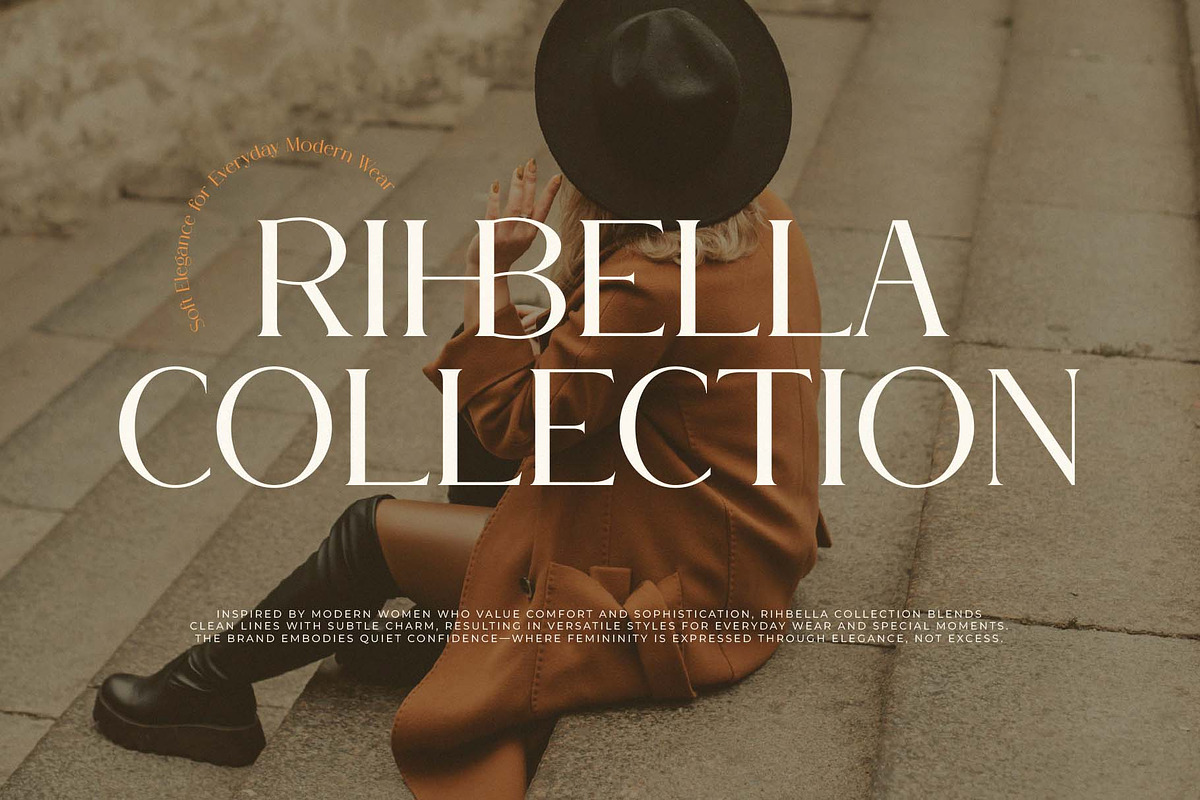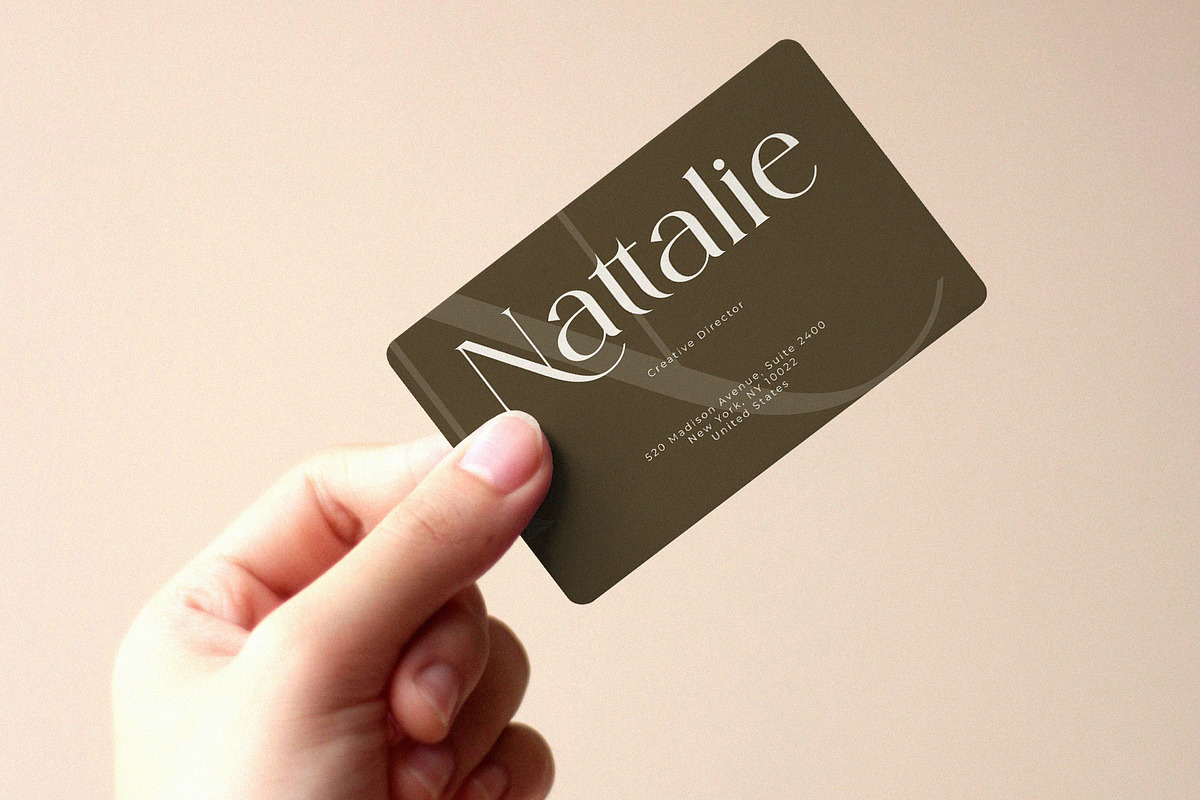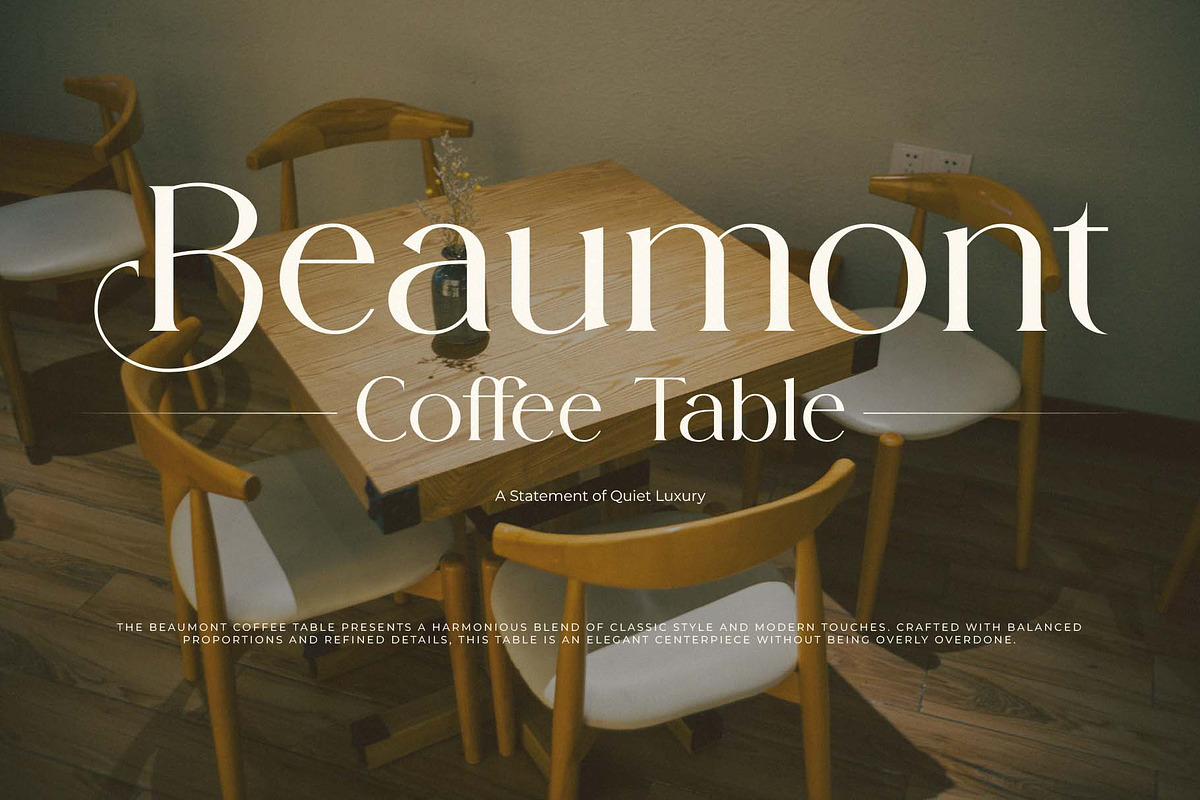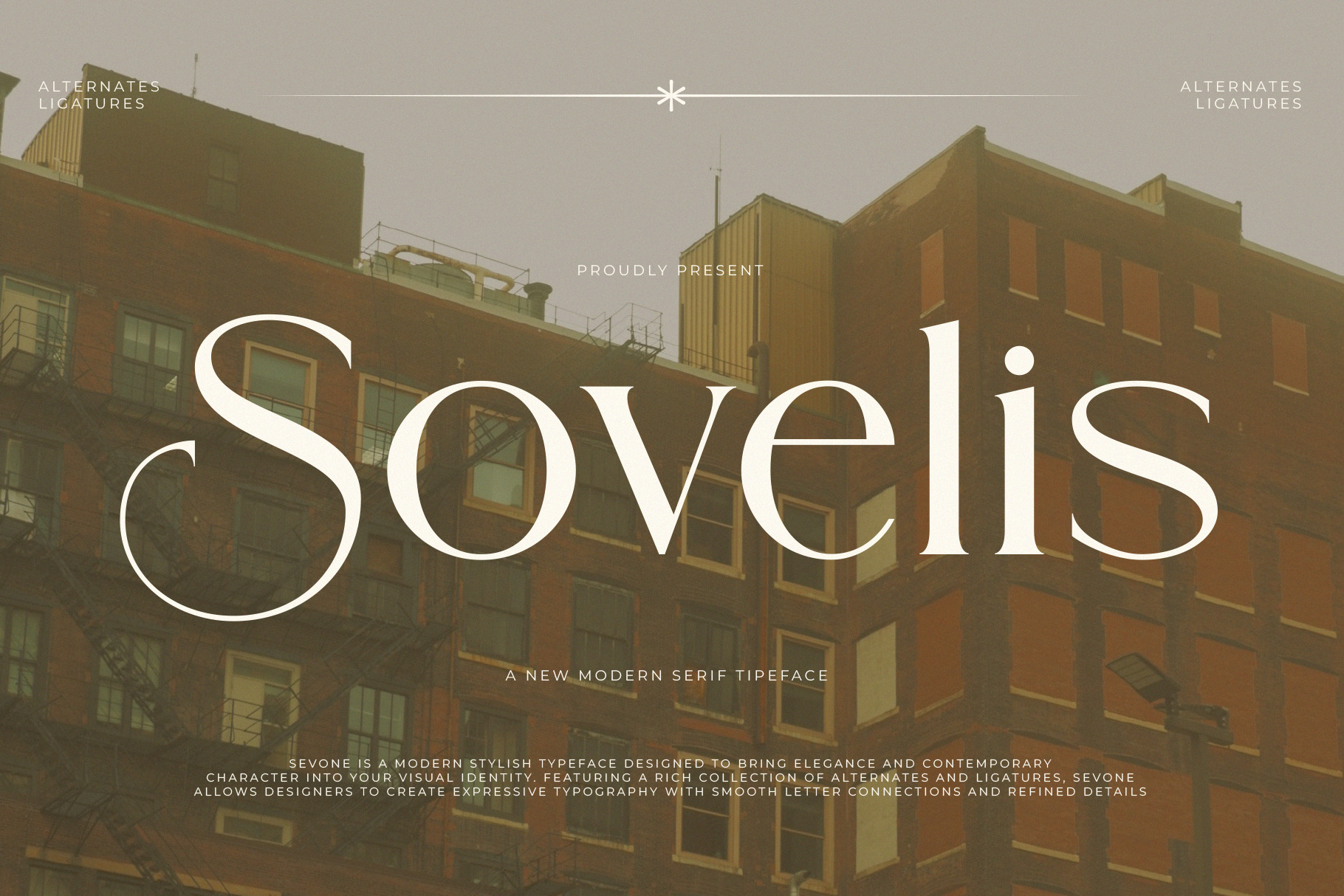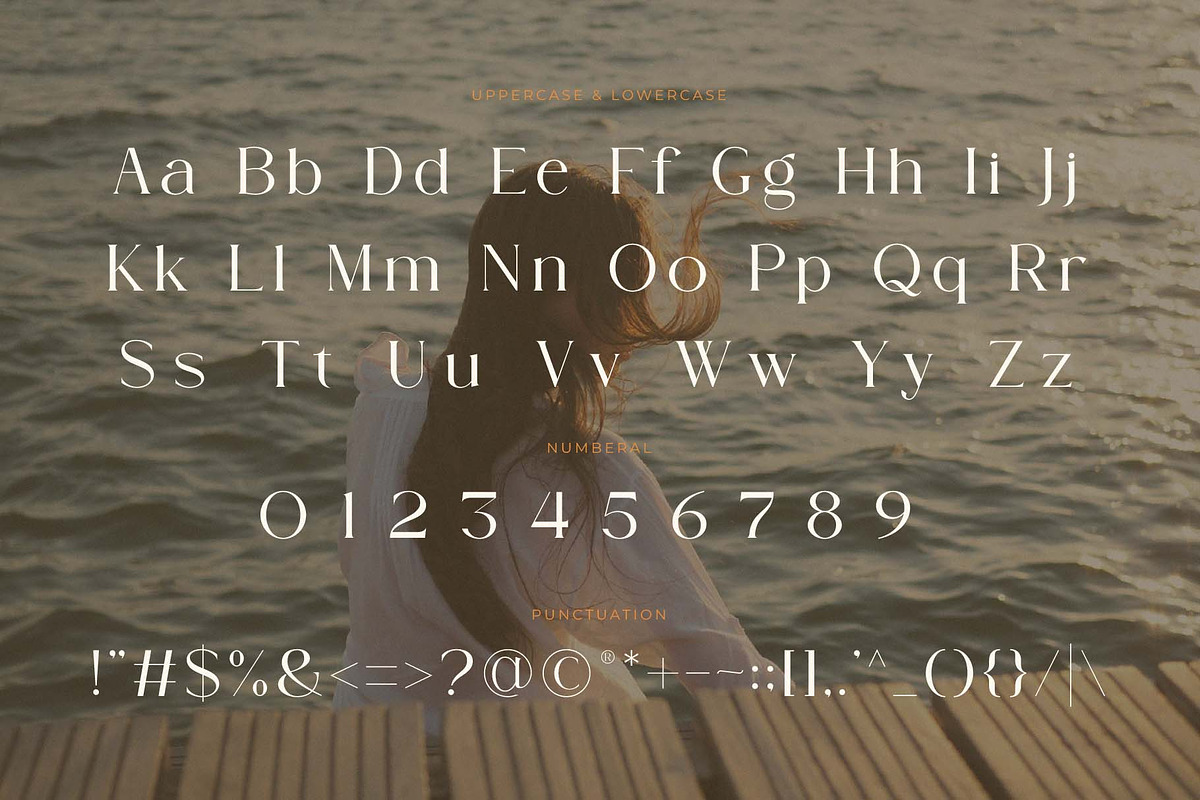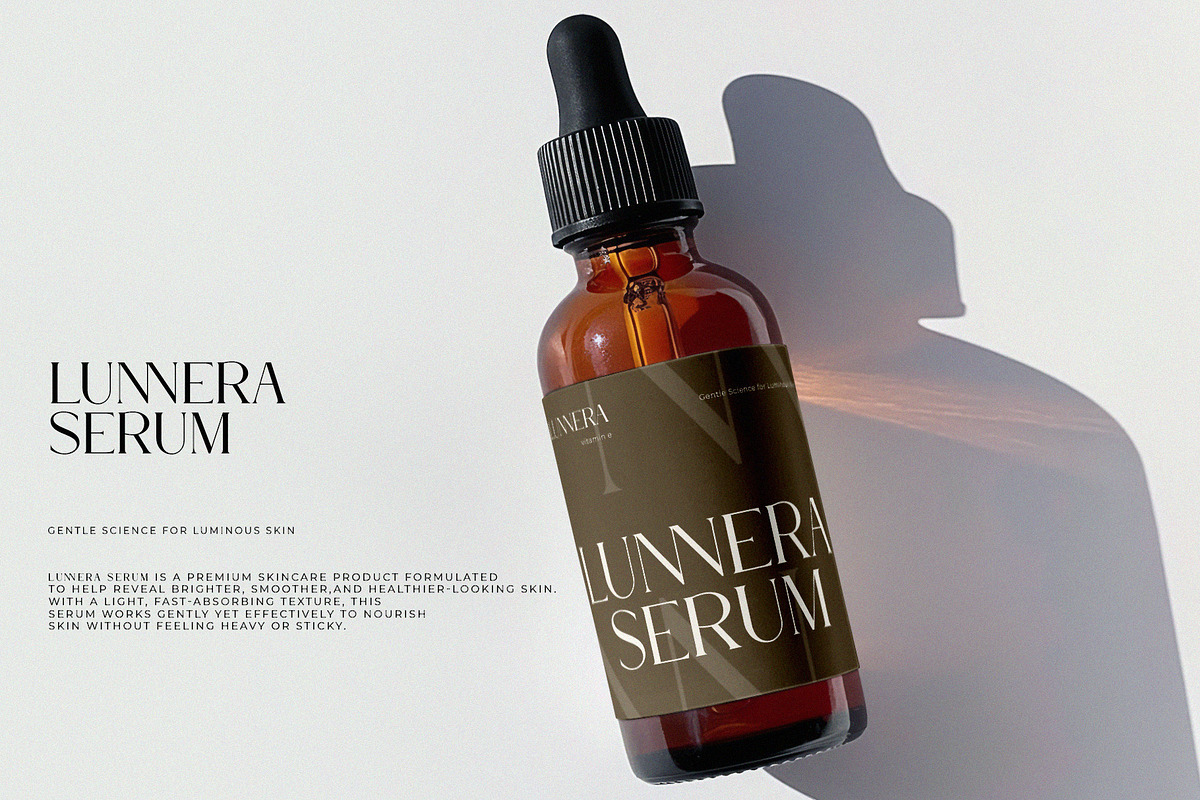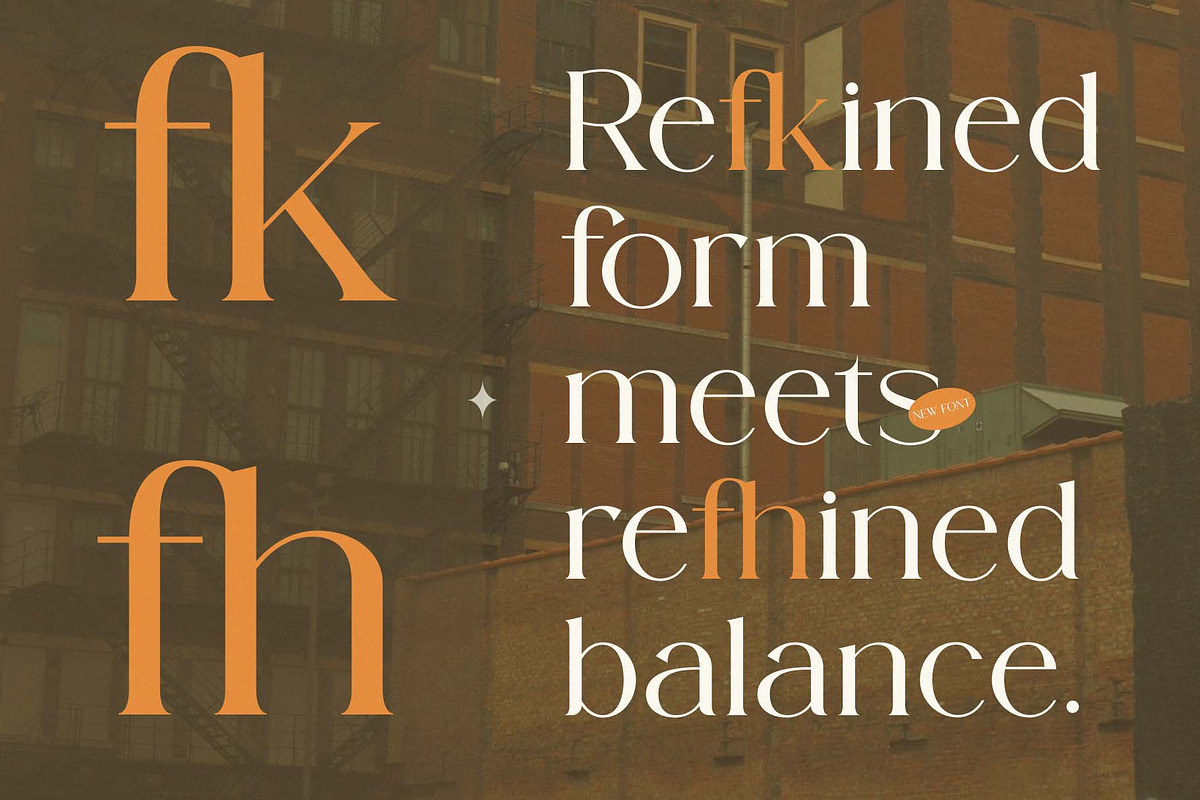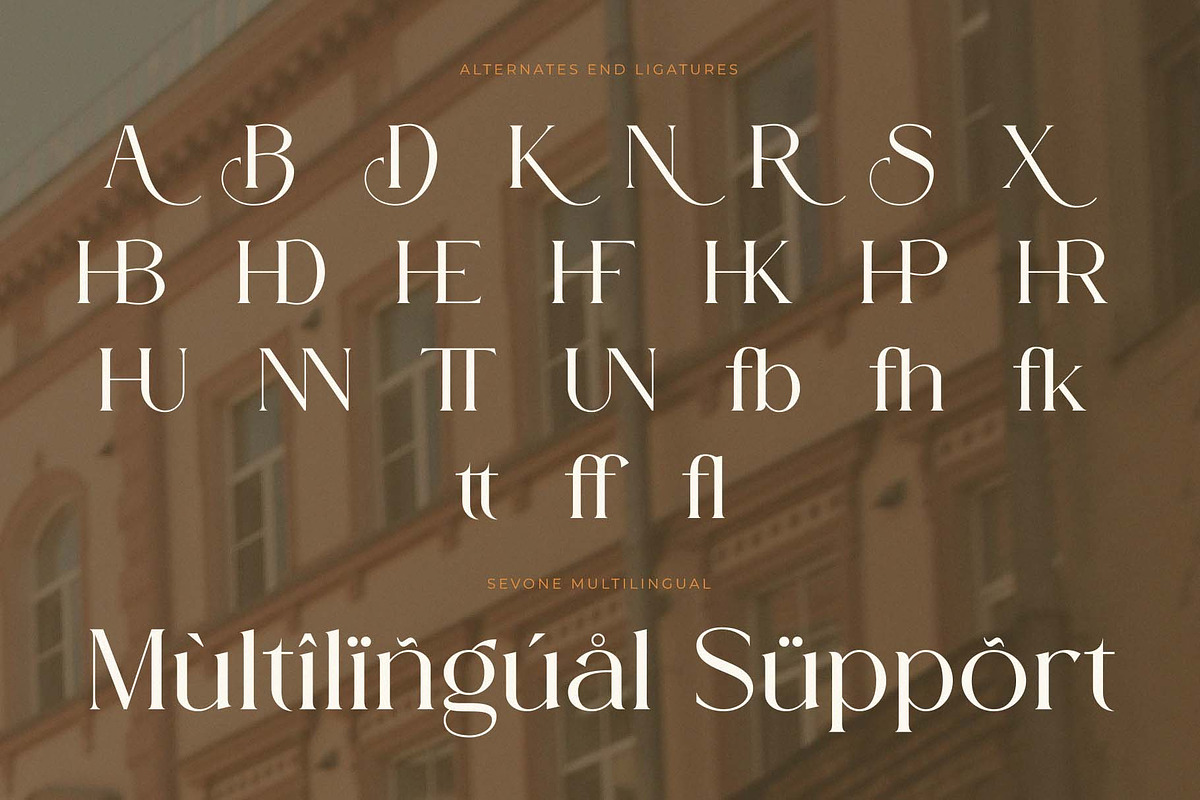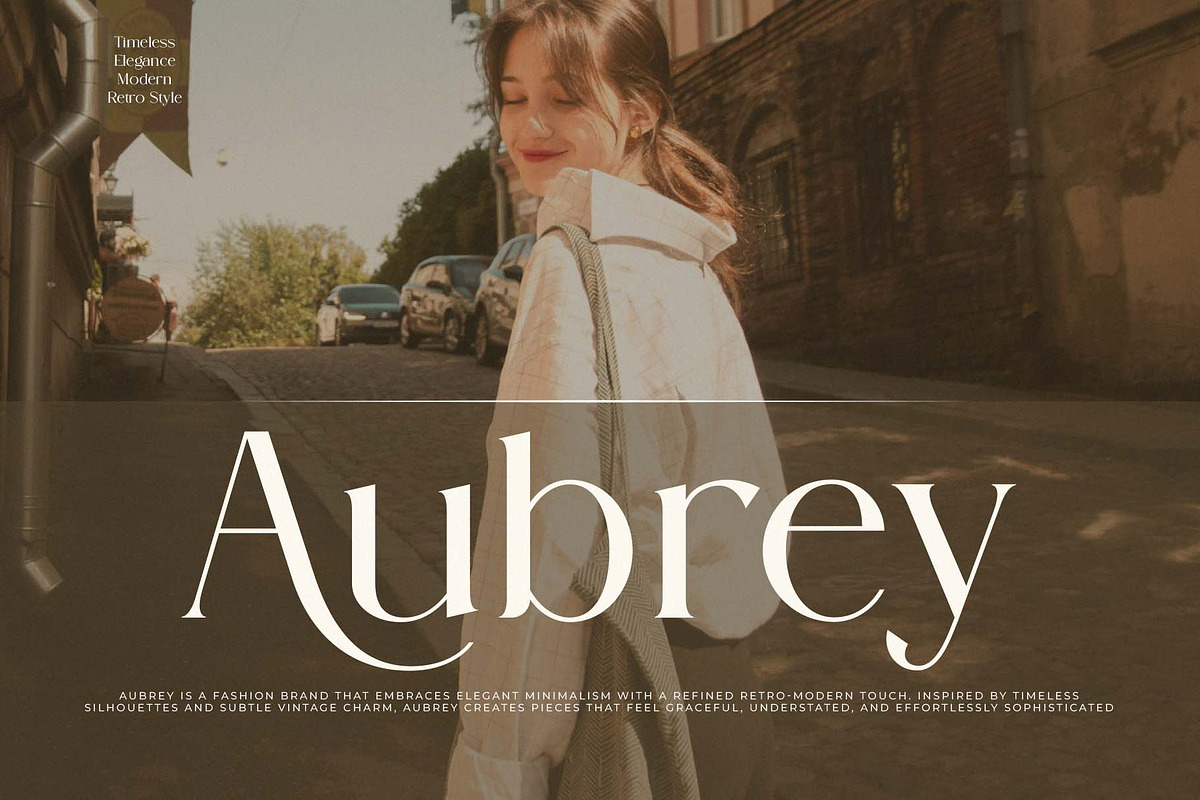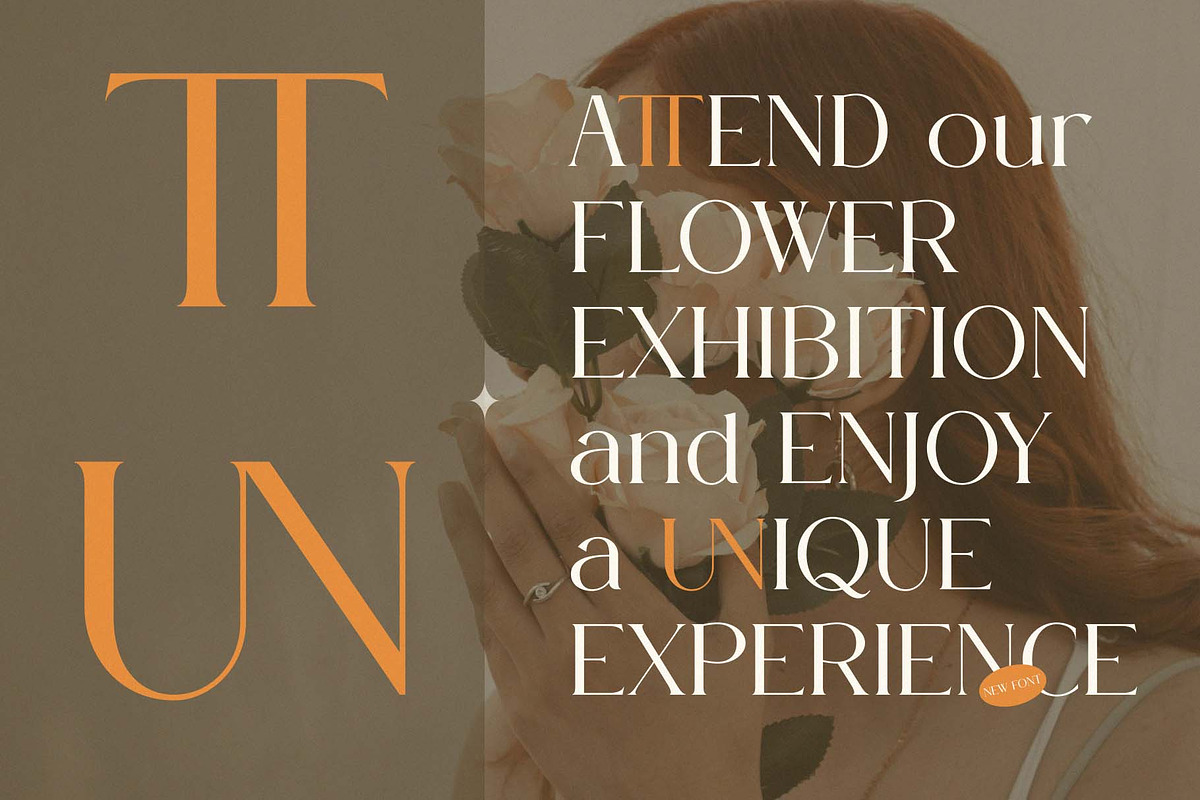
Sovelis - A New Modern Serif font
Introducing Sovelis the elegant, beautiful, and modern Serif. With its modern and minimalist look, Sovelis brings a luxurious, classy, and clean style to your projects such as websites, modern logos, brand identities, social media quotes, wedding stationery, magazines, and more!
Sovelis features unique and classy capital letters A to Z and also comes with unique alternates making Sovelis a beautiful font that can be customized for various projects and jobs you want.
Sovelis is perfect for: logos, brands, wedding invitations, business cards, greeting cards, posters, magazines, social media, agenda prints, and websites.
FEATURE:
* Uppercase and lowercase letters
* Multilingual Characters
* Numbers & punctuation
* Alternative styles and ligatures (on some fonts)